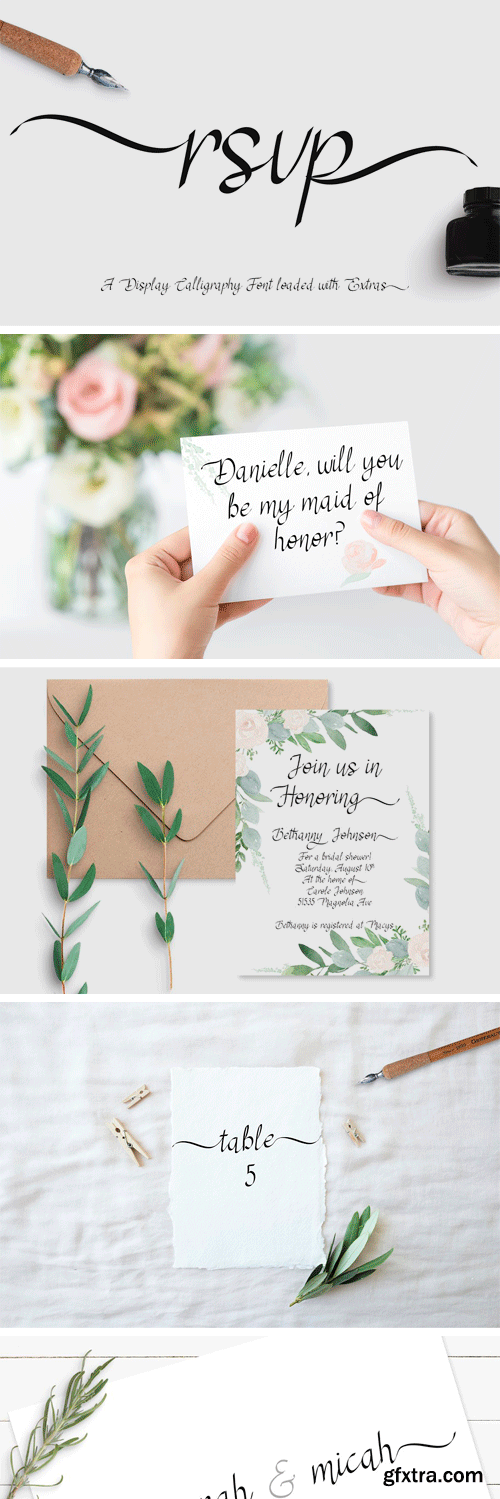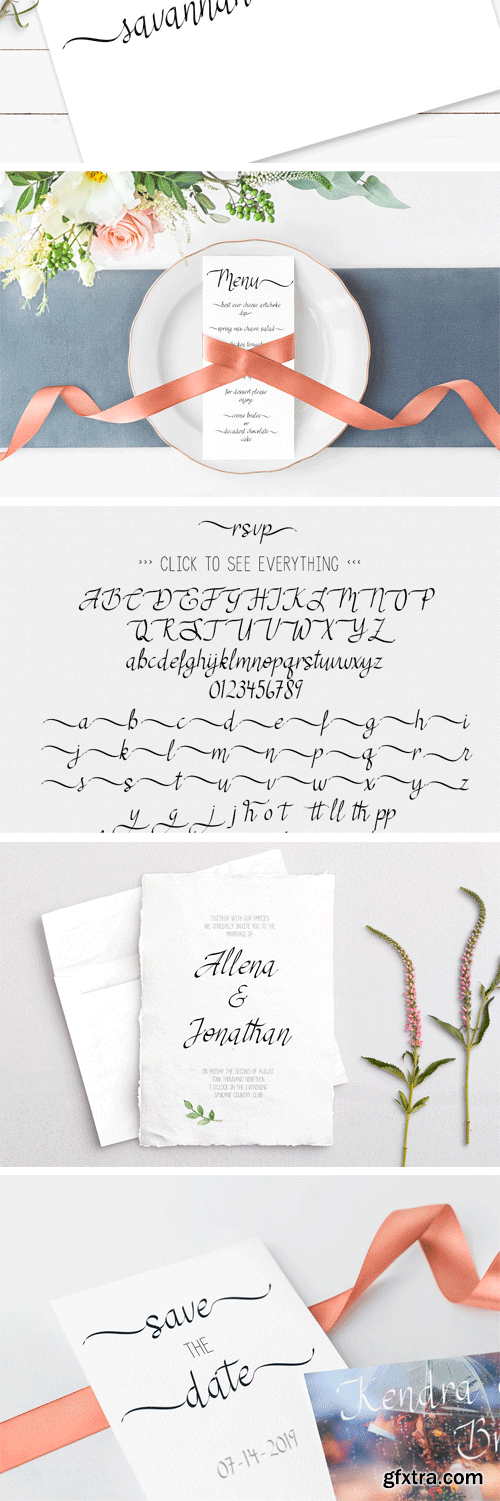
CM - RSVP Display Calligraphy Font + 3335444
RSVP Calligraphy fonts is an elegant display font loaded with swatches, ligatures, & stylistic alternatives. Created to go well on invitations, cards, & stationary with just a little bit of bounce and lots of style! The nib at 45 degrees give the traditional calligraphy feel, but it is modernized by new styles of letters and the extra swatches.